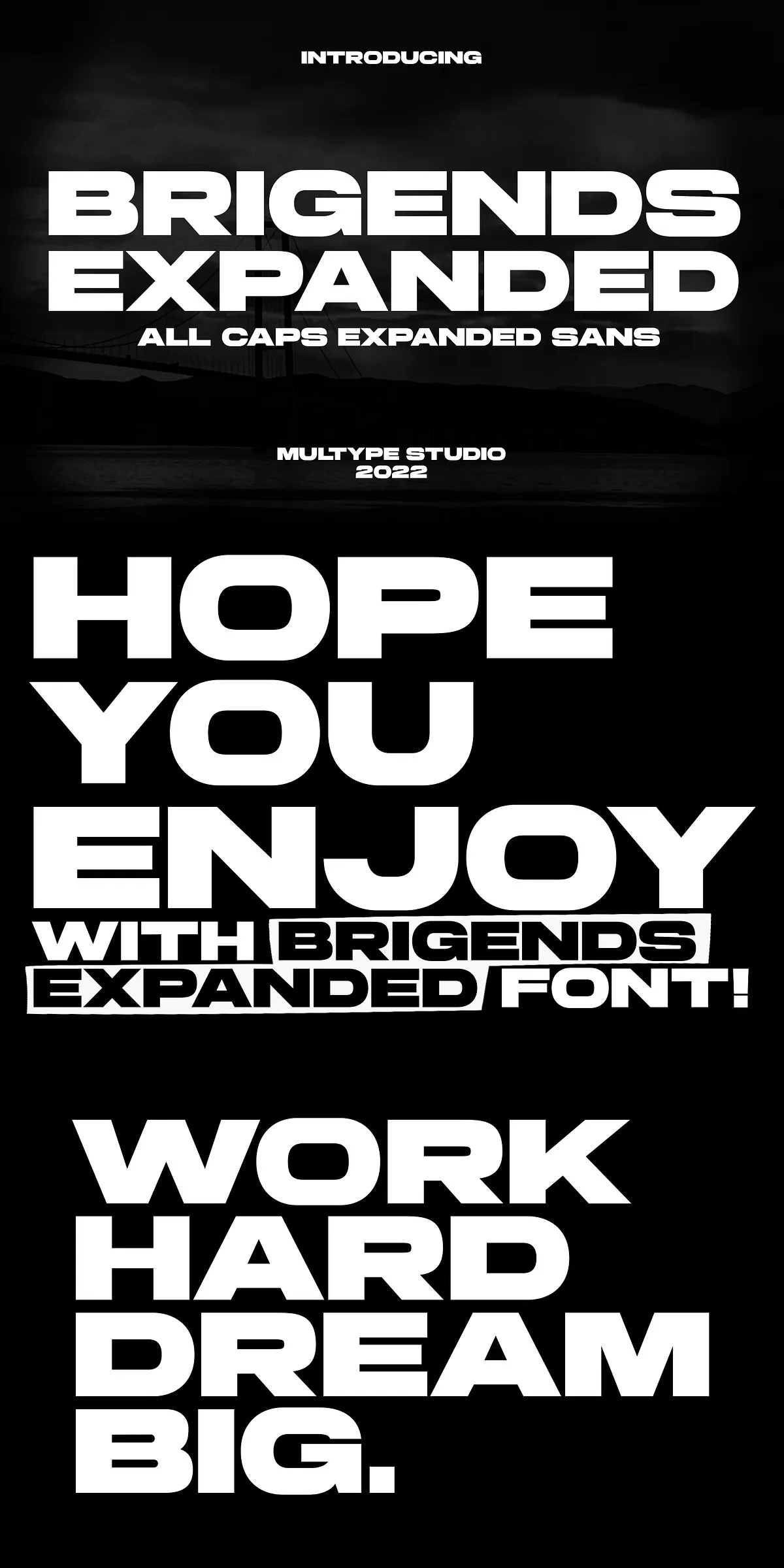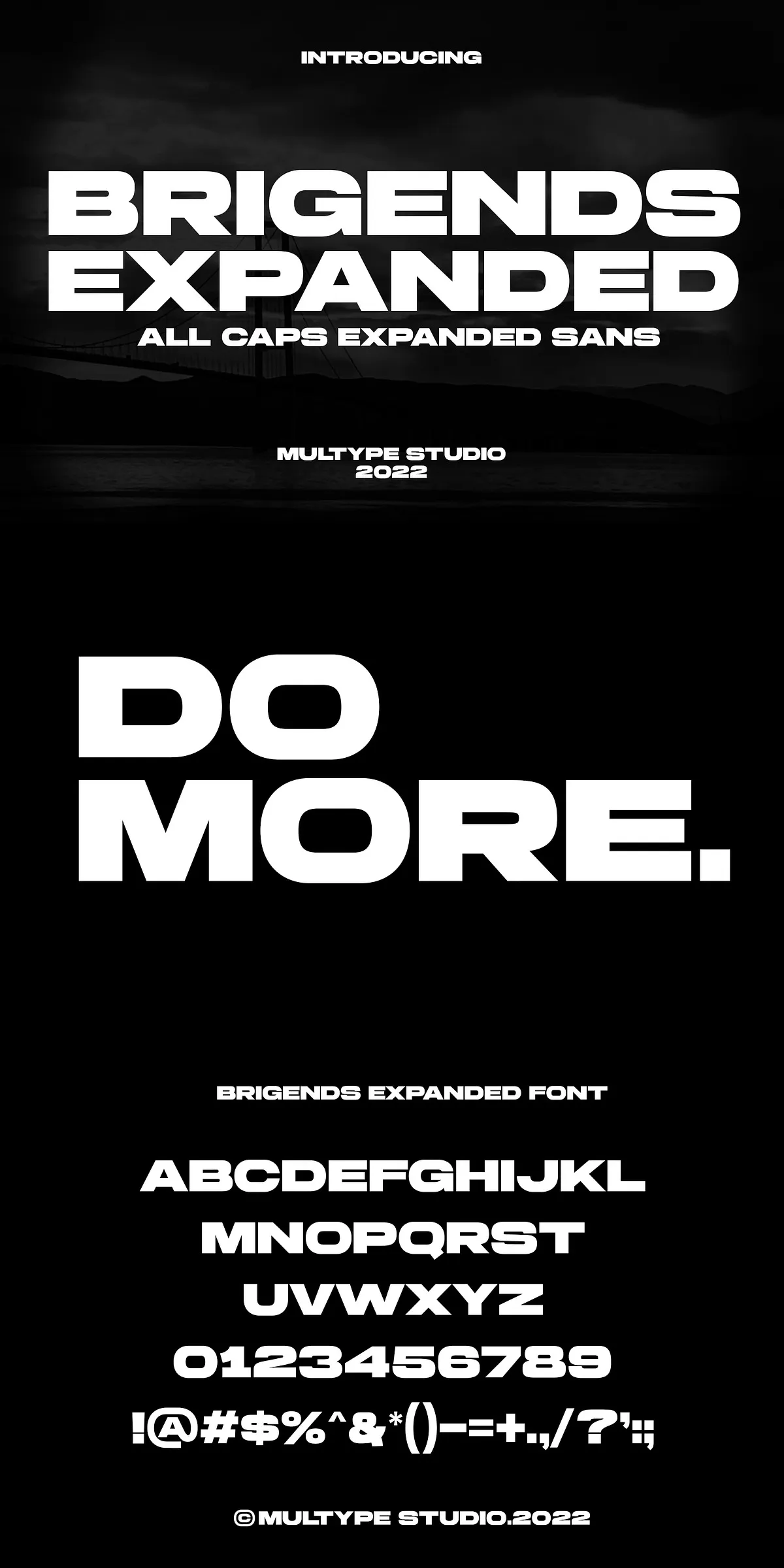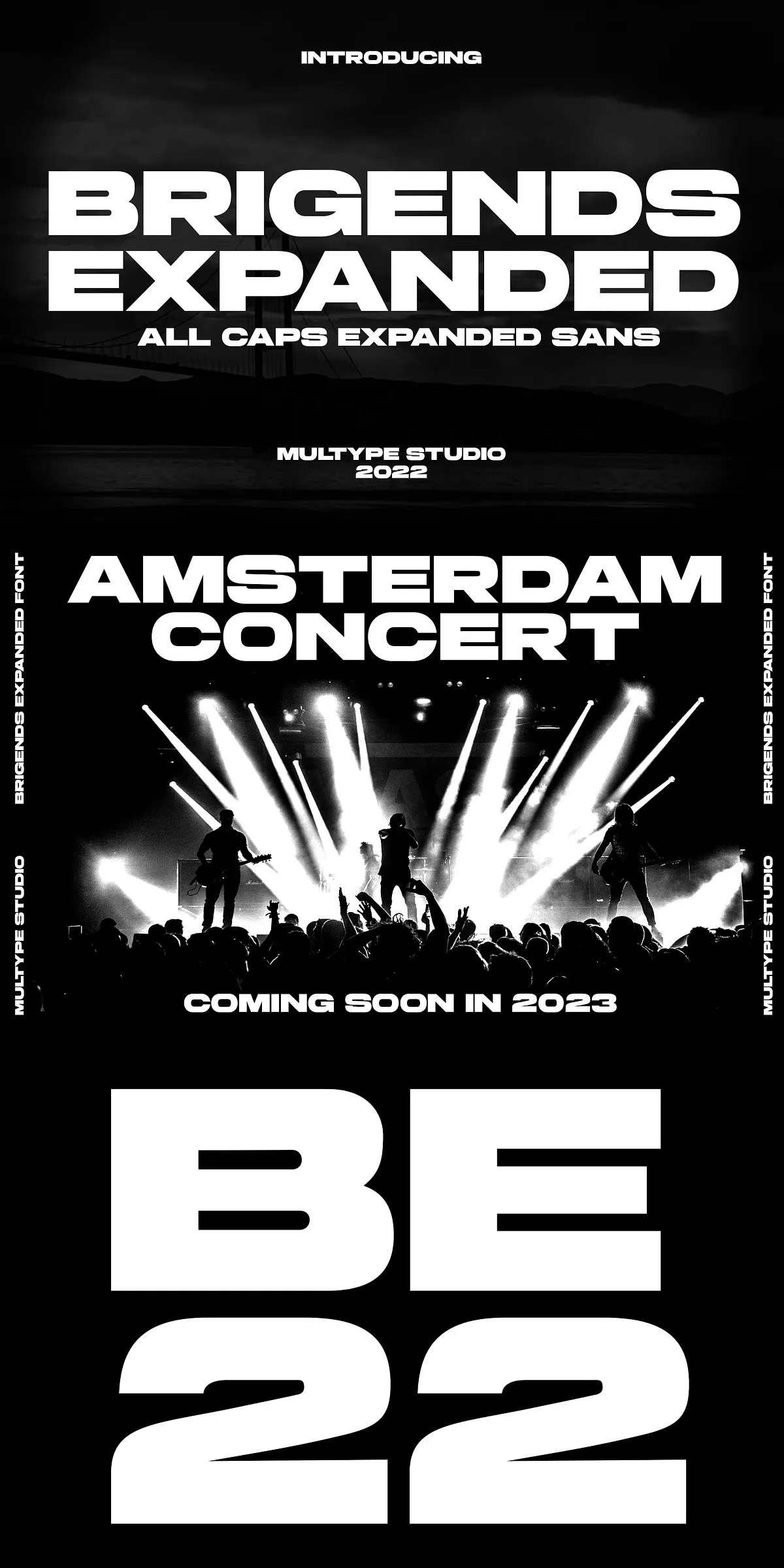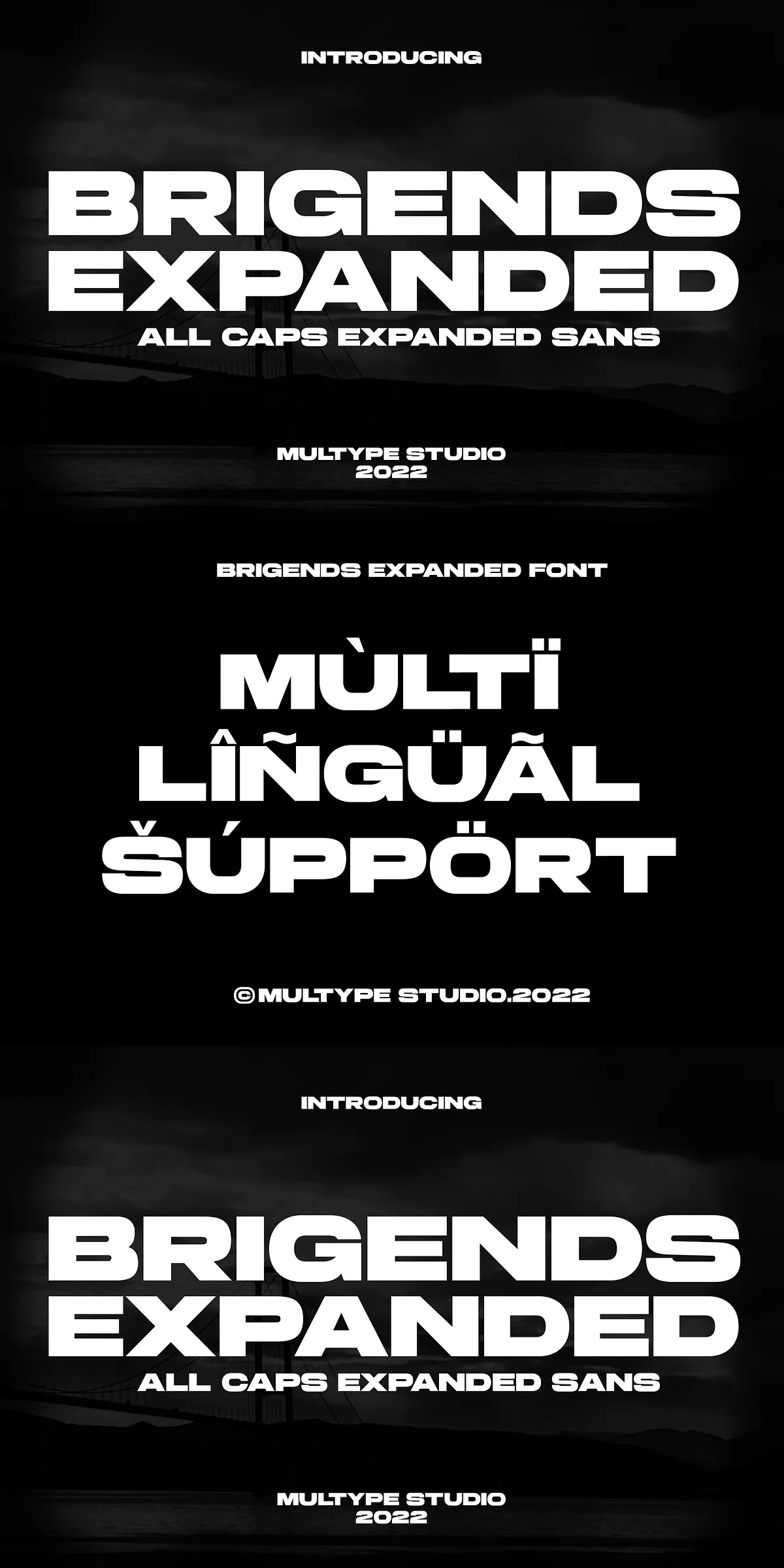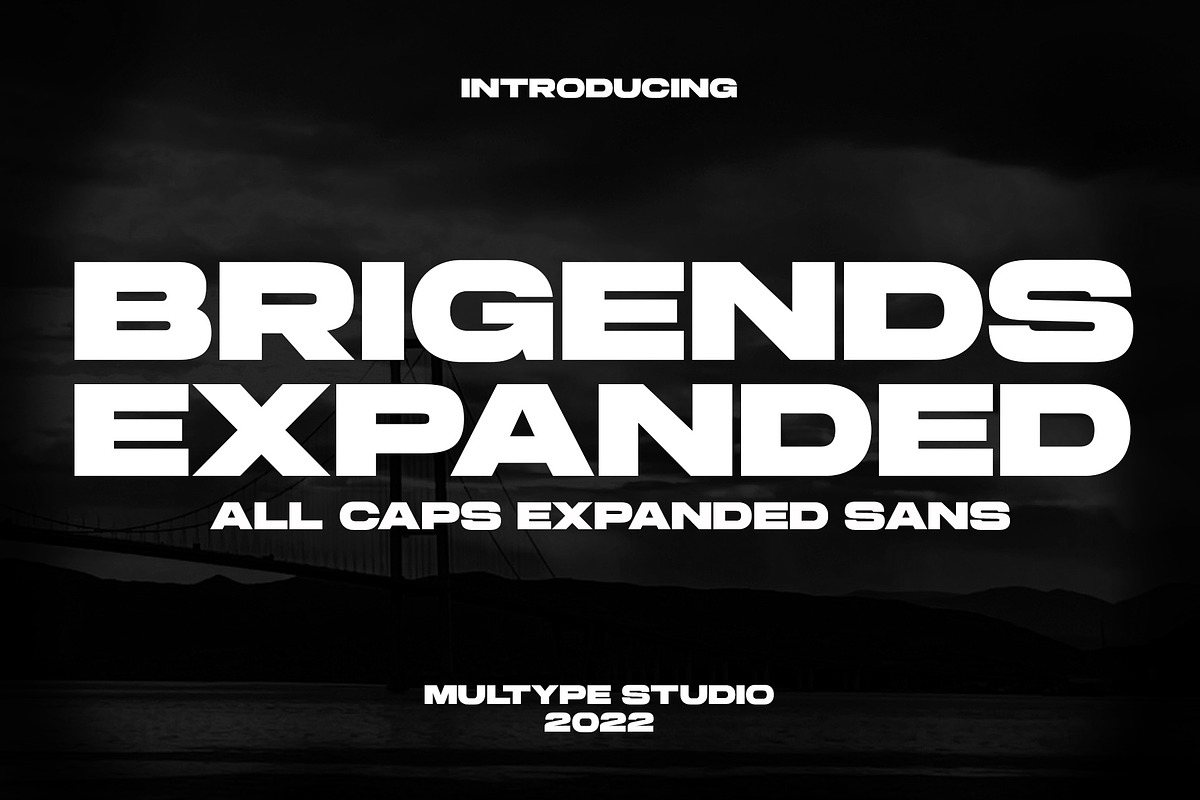
Make your message impossible to ignore with Brigends Expanded, a bold, commanding sans-serif typeface built to leave a lasting impression. This is not just a font—it’s a visual force. Engineered for strength and clarity, Brigends Expanded delivers a modern, confident aesthetic that elevates any design project from ordinary to extraordinary. From corporate branding to artistic expression, this typeface is your essential tool for creating designs with purpose and power.
Designed for Impact: The Power of a Strong, Modern Presence
Brigends Expanded thrives where boldness matters. Whether you’re crafting a high-impact logo, a dynamic promotional campaign, or a striking movie title, this font delivers unmatched visual authority. Its robust, geometric structure ensures perfect legibility even at small sizes, while its expanded letterforms maximize presence and energy on the page. Every stroke is precision-crafted to convey professionalism, innovation, and a fearless creative spirit—perfect for brands that want to lead, not follow.
Why This Font Commands Immediate Attention
- Strong Visual Impact: Optimized contrast and weight distribution ensure your text dominates the composition.
- Modern Aesthetic: The clean, minimalist geometry aligns with contemporary design standards across every platform.
- High Readability: Exceptional clarity allows your message to be understood at a glance—critical for headlines and branding.
Features Built for Real-World Design Efficiency
Brigends Expanded is more than a standout font—it’s a full-featured design solution. Every component is designed with the real-world workflow of designers in mind, ensuring you spend less time on setup and more time creating.
- All Caps Included: Perfect for logos, headlines, and branding elements where uppercase styling is essential.
- Complete Character Set: Full support for numbers, punctuation, symbols, and special characters to cover all creative needs.
- PUA Encoded Characters: Access to additional glyphs and styling options directly from your keyboard—no extra software or complex setups required.
- Multilingual Support: Built with international use in mind—fully supports Latin-based scripts including French, German, Spanish, Italian, Scandinavian, and more.
Work Smarter, Not Harder
With Brigends Expanded, advanced typographic features are accessible without complexity. Whether you’re designing a one-off poster or managing a large-scale branding project, the font remains consistent, reliable, and easy to implement—every time.
Perfect for Every High-Profile Design Use Case
Brigends Expanded was engineered for versatility and professional results across diverse applications:
- Logo & Branding: Create unforgettable brand identities with a font that exudes confidence and modernity.
- Promotions & Advertising: Design posters, flyers, and digital ads that catch the eye and drive engagement.
- Book & Magazine Covers: Stand out on shelves with bold, eye-catching title typography.
- Social Media Content: Make headlines, captions, and quotes pop on Instagram, Facebook, and LinkedIn.
- Website Layouts & Headlines: Use in web design to emphasize key content and guide user focus.
- Movie & Event Titles: Set the tone for trailers and promotional materials with a font that feels cinematic and powerful.
Future-Proof Design, Instantly Available
Install once. Design with authority for years to come.
Pro Tip: Pair with Minimalism to Maximize Impact
Let Brigends Expanded do the talking. Pair it with clean, understated design elements to create a powerful contrast:
- Use subtle gray or white backgrounds to let the bold font shine.
- Use minimal color palettes—black, white, or single accent colors—so the font remains the center of attention.
Brigends Expanded isn’t just a font. It’s a design mindset. It’s for creators who value clarity, strength, and bold expression. Stop blending in. Start leading with Brigends Expanded.